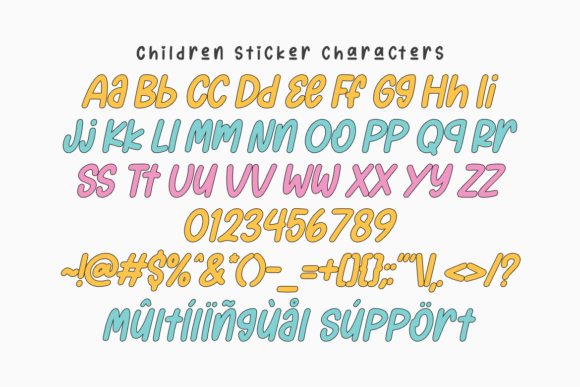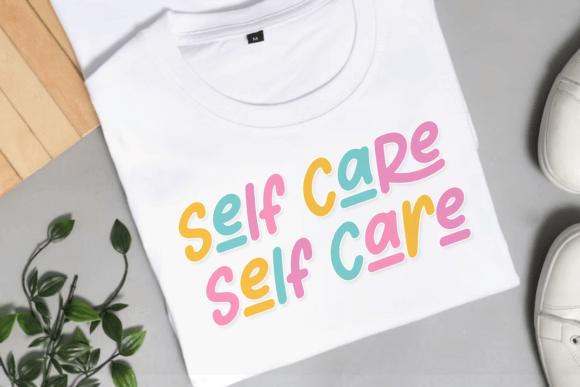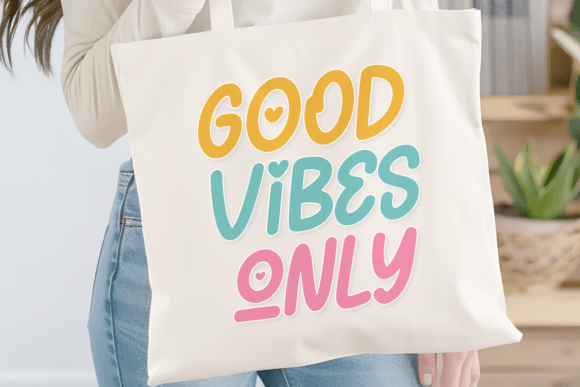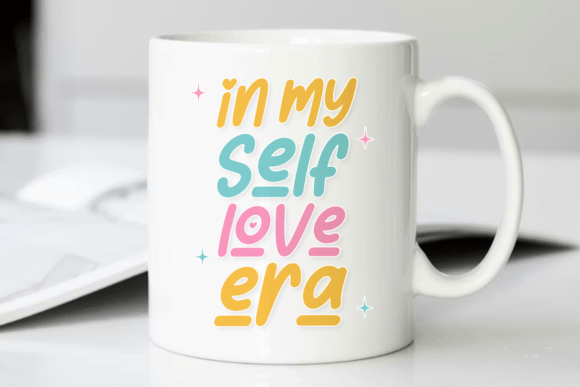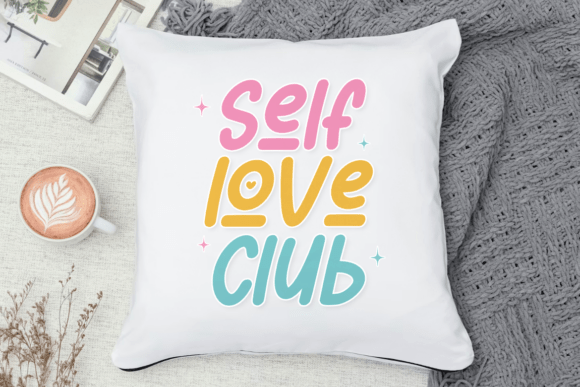
Introducing Children Sticker Italic Font: The Ultimate Choice for Whimsical Designs
Are you a designer or crafter looking for a font that captures the essence of childhood wonder and playfulness? Look no further than the Children Sticker Italic Font! This adorable display font is inspired by the whimsical world of childhood stationery and colorful decals, making it perfect for creating high-impact designs that evoke joy and creativity.
What Makes Children Sticker Italic Font Special?
The Children Sticker Italic Font features soft, rounded strokes and playful proportions that set it apart from other fonts. Its clean, bold lines are perfectly optimized for the crafting community, ensuring a smooth and easy weeding experience for all your vinyl and digital cutting projects. Whether you’re creating personalized kids’ stickers, school labels, custom lunchbox decals, or nursery wall art, this font is sure to make your designs stand out.
The Children Sticker Italic Font is incredibly versatile and can be used for a wide range of projects, including:
- Creating personalized kids’ stickers and labels
- Designing custom lunchbox decals and nursery wall art
- Crafting birthday invitations and t-shirt designs for children
- Creating classroom decor and teacher appreciation gifts
- Digital scrapbooking and playful social media branding
Great for Holiday Themes
The Children Sticker Italic Font is especially perfect for holiday themes such as:
- Back to School season
- Children’s Day
- Birthdays and Spring celebrations
Adding a friendly and spirited touch to every festive project, this font is sure to bring a smile to everyone’s face.
Why Designers and Crafters Love Children Sticker Italic Font
Designers and crafters love the Children Sticker Italic Font for its:
- Unique and playful design
- Easy-to-read and clean lines
- Optimized performance for vinyl and digital cutting projects
- Versatility and wide range of uses
Tips for Using Children Sticker Italic Font
Here are some tips for getting the most out of the Children Sticker Italic Font:
- Use it for headlines and titles to add a playful touch
- Pair it with other fonts to create a unique and interesting contrast
In conclusion, the Children Sticker Italic Font is a must-have for designers and crafters looking to add a touch of whimsy and playfulness to their projects. With its unique design, clean lines, and versatility, this font is perfect for a wide range of applications. Whether you’re creating personalized kids’ stickers, classroom decor, or social media branding, the Children Sticker Italic Font is sure to bring a smile to everyone’s face.